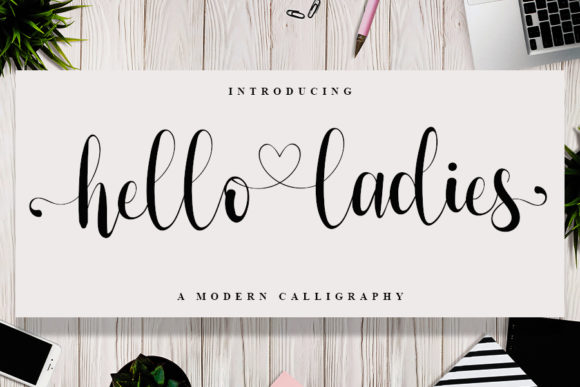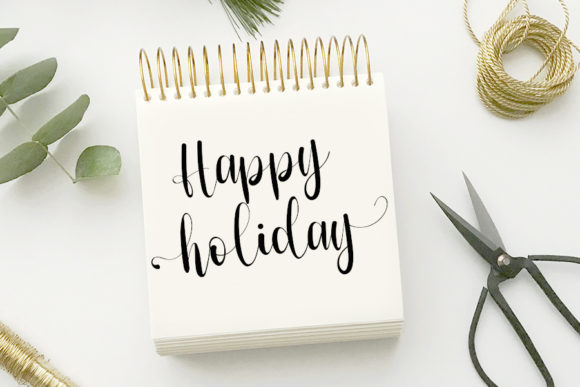
About Hello Ladies Font
Hello Ladies is a feminine and romantic script font with beautiful and delicate swashes. Make any design look stunning with this font from your thank you cards, quotes, social media posts, or wall art to name a few.
This font is PUA encoded which means you can access the available glyphs and swashes with ease!